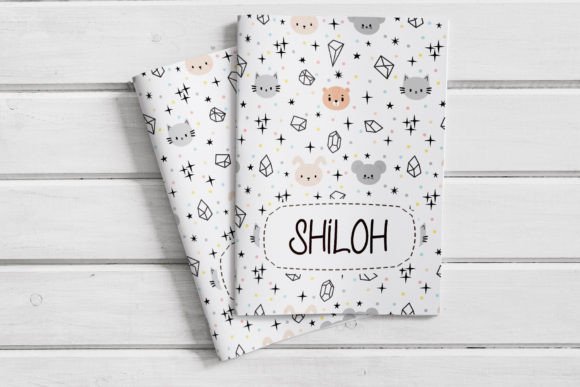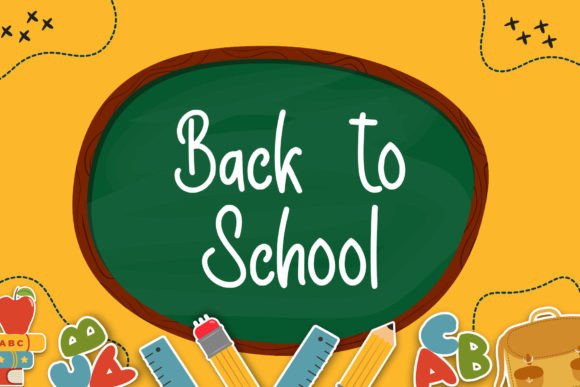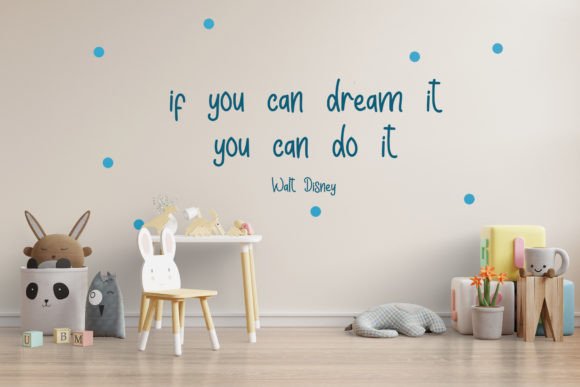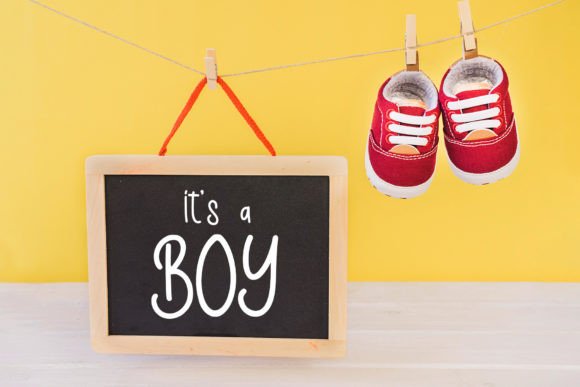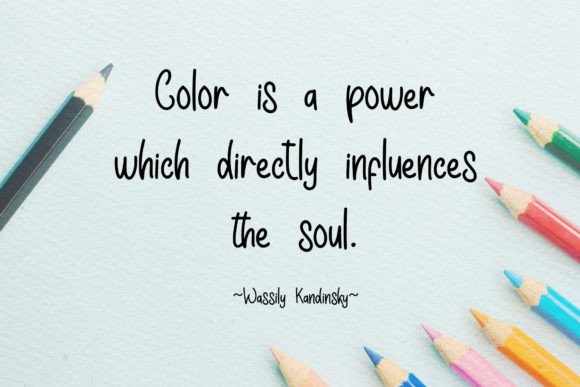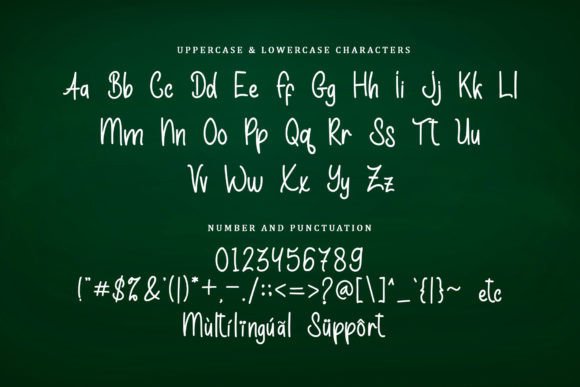
Bring Joy to Your Designs with Kids Chalk Font
Remember the moment when your little one first grasped a crayon and scribbled on a piece of paper, beaming with pride? That same sense of wonder and creativity can be captured in your designs with the perfect font. Introducing the Kids Chalk Font, a charming handwritten display font that’s sure to bring a smile to anyone’s face.
This adorable font is designed to elevate your kid-friendly designs, making it perfect for creating one-of-a-kind t-shirt designs, baby onesies, nursery decorations, and digital designs. With its friendly and approachable feel, the Kids Chalk Font is a valuable addition to any designer’s toolkit. Whether you’re a seasoned pro or just starting out, this font is sure to help you create designs that are both fun and engaging.
- Unique Characteristics: The Kids Chalk Font features a playful, hand-drawn design with a soft, chalk-like texture, giving it a unique and eye-catching appearance.
- Legibility: Despite its playful design, the font remains highly legible, making it suitable for use in a variety of contexts, from children’s educational materials to advertising and marketing campaigns.
Kids Chalk Font Review
Overall, I think the Kids Chalk Font is a cute and playful font that can be used for various purposes, such as children’s book illustrations, educational materials, or even kids’ party invitations. ✨ It has a fun, energetic vibe that can grab the attention of kids and parents alike.
- Unique and playful style: The font has a distinctive, hand-drawn look that sets it apart from other sans-serif fonts. ✨
- Great for kids’ content: As the name suggests, the font is perfect for creating content that’s geared towards children, such as storybooks, educational materials, and more. ✨
- Customizable: The font comes in various weights and styles, making it easy to customize it to fit your specific needs. ✨
- Not ideal for formal content: Due to its playful style, the font may not be suitable for formal documents, such as business reports or academic papers. ⚠️
- May be difficult to read: Some characters in the font may be difficult to read, especially at smaller font sizes. ⚠️
- Not suitable for long blocks of text: The font’s playful style may make it difficult to read large blocks of text, so it’s best used for short paragraphs or headlines. ⚠️
In conclusion, the Kids Chalk Font is a fun and playful font that’s perfect for kids’ content, but may not be suitable for formal or long blocks of text. With some careful consideration, it can be a great addition to your design arsenal. ✨
To get the most out of the Kids Chalk Font, try using it in combination with other playful fonts and graphics. You can also experiment with different font sizes, colors, and styles to create a unique and eye-catching design.
Common use cases for the Kids Chalk Font include creating playful and educational materials, such as children’s books, worksheets, and presentations.